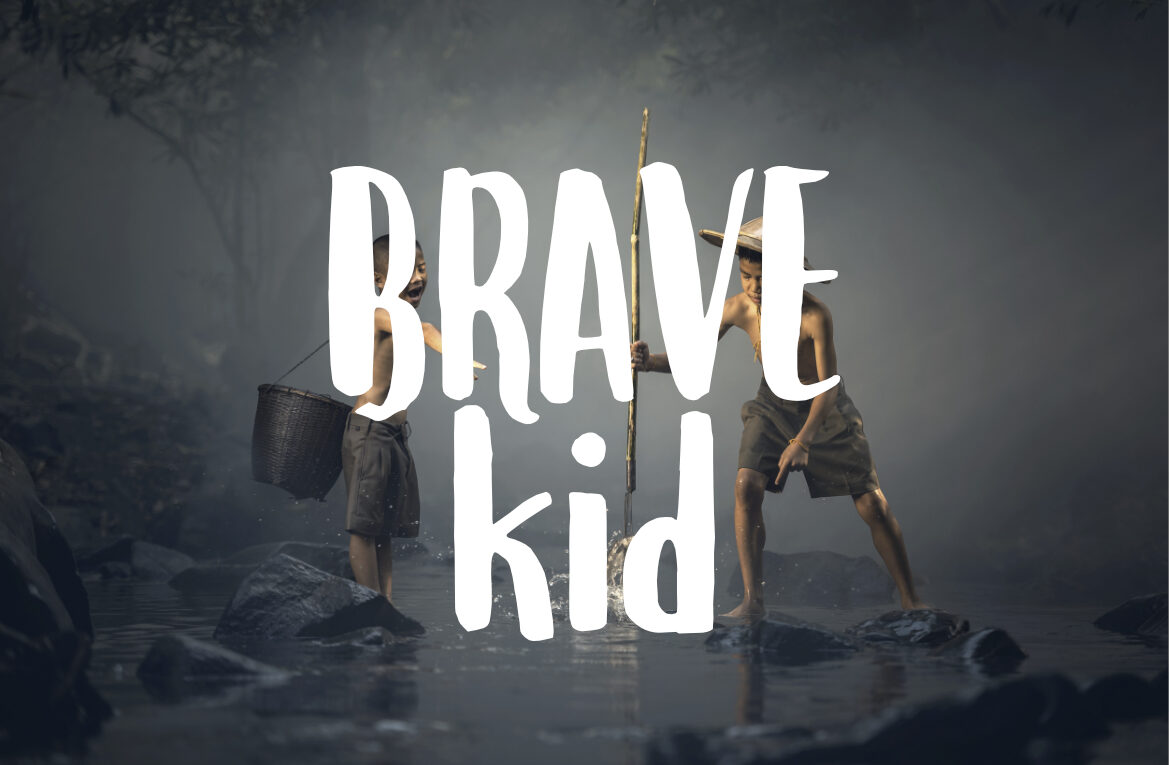
Brave Kid Font: The Perfect Choice for Fun and Edgy Designs
Are you a designer or crafter looking for a font that can add a touch of personality to your projects? Look no further than the Brave Kid Font. This friendly font is styled in a bold and approachable manner, making it perfect for a wide range of designs, from children’s themed projects to edgier designscapes.
What Makes Brave Kid Font So Special?
Brave Kid Font is a versatile and fun font that can add a unique touch to any design. Its bold and approachable style makes it perfect for designs that require a friendly and approachable tone. Whether you’re creating a children’s book, a craft project, or a bold advertising campaign, Brave Kid Font is sure to make your design stand out.
Characteristics of Brave Kid Font
So, what makes Brave Kid Font so special? Here are just a few of its key characteristics:
• Bold and Approachable: Brave Kid Font is styled in a bold and approachable manner, making it perfect for designs that require a friendly tone.
• Versatile: This font is versatile and can be used in a wide range of designs, from children’s themed projects to edgier designscapes.
• Fun: Brave Kid Font is a fun font that can add a touch of personality to any design.
• Easy to Read: Despite its bold style, Brave Kid Font is easy to read, making it perfect for designs that require a clear and concise message.
Uses for Brave Kid Font
So, what can you use Brave Kid Font for? The possibilities are endless! Here are just a few ideas to get you started:
• Children’s Themed Designs: Brave Kid Font is perfect for children’s themed designs, such as children’s books, nursery decor, and kids’ party invitations.
• Edgy Designs: Despite its friendly style, Brave Kid Font can also be used in edgier designscapes, such as bold advertising campaigns and edgy fashion designs.
• Craft Projects: Brave Kid Font is perfect for craft projects, such as handmade cards, scrapbooking, and DIY decor.
• Digital Designs: This font can also be used in digital designs, such as social media graphics, blog posts, and website headers.
Why Choose Brave Kid Font?
So, why choose Brave Kid Font over other fonts? Here are just a few reasons:
• Unique Style: Brave Kid Font has a unique style that can add a touch of personality to any design.
• Versatility: This font is versatile and can be used in a wide range of designs.
• Fun: This font is fun and can add a touch of whimsy to any design.
Tips for Using Brave Kid Font
Here are just a few tips for using Brave Kid Font:
• Use it Boldly: Brave Kid Font is a bold font, so don’t be afraid to use it boldly in your designs.
• Experiment with Colors: This font looks great in a wide range of colors, so experiment with different colors to find the one that works best for your design.
• Pair it with Other Fonts: Brave Kid Font can be paired with other fonts to create a unique and interesting design.
• Have Fun: Most importantly, have fun with Brave Kid Font! It’s a fun font that’s meant to add a touch of personality to your designs.
Font Name Brave Kid Font
Author LebahStudio
In conclusion, Brave Kid Font is a friendly font that’s perfect for designers and crafters who want to add a touch of personality to their projects. Its bold and approachable style makes it versatile and fun to use, and it’s perfect for a wide range of designs, from children’s themed projects to edgier designscapes. So why not give Brave Kid Font a try? With its unique style, versatility, and ease of use, it’s sure to become a favorite in your design arsenal.